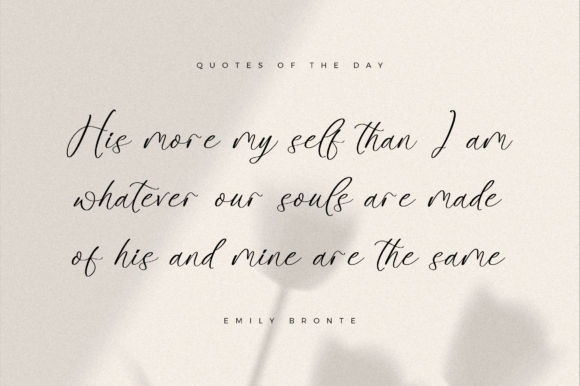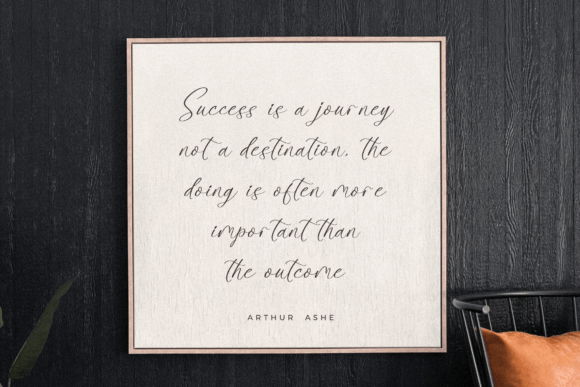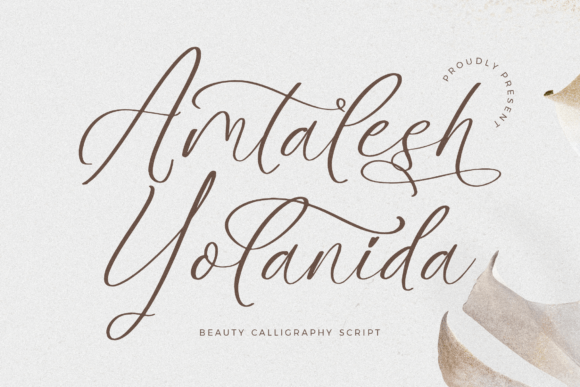
Amtalesh Yolanida Font
About the Amtalesh Yolanida Font
Add a touch of class to your work with the Amtalesh Yolanida Font, a truly exceptional typeface. Amtalesh Yolanida is a dazzling script font. This font is neatly crafted and highly detailed. Whatever the topic, this font will be a wonderful asset to your font library, as it has the potential to enhance any creation.
Amtalesh Yolanida’s elegant and detailed script is ideal for headlines, logos, and short text elements in branding projects, invitations, or packaging where its ornate style can shine. It works exceptionally well for projects needing a touch of vintage charm or luxurious feel. However, its intricate details make it unsuitable for body text or UI elements where readability is paramount.
This font’s inherent sophistication pairs well with clean sans-serif fonts like Open Sans or Lato for a balanced contrast, or a geometric sans-serif like Montserrat for a modern feel. A simple serif like Merriweather can provide a classic, grounded counterpoint to its swirling forms. Avoid pairing it with other highly decorative fonts, as this could create visual clutter.
Its core personality is sophisticated and elegant, conveying a sense of refined luxury. Therefore, brands and projects aiming for a premium, high-end image would find this font particularly effective.
Amtalesh Yolanida Font Usage Examples
Amtalesh Yolanida Font Example